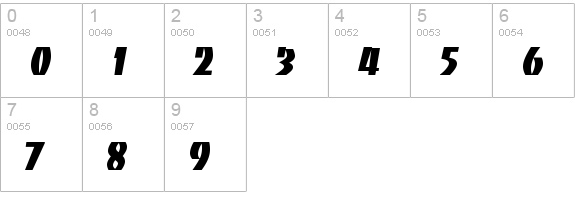
Banco Std Roman Font Details
Banco Std Roman is a classic and elegant typeface that exudes sophistication and professionalism. With its timeless design and clean lines, this font is perfect for adding a touch of refinement to any project. The versatile nature of Banco Std Roman makes it suitable for a wide range of applications, from branding to editorial design. One of the best things about Banco Std Roman is that it is completely free to download at FontsMarket.com. This means you can access this high-quality font without any cost, making it a valuable addition to your font library. Don't miss out on the opportunity to enhance your designs with Banco Std Roman - download it today and elevate your projects to the next level.